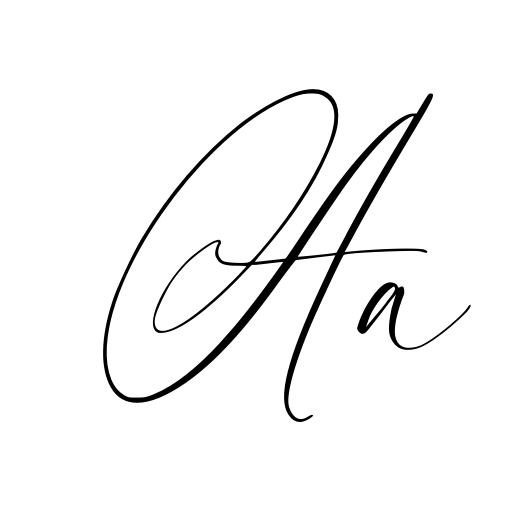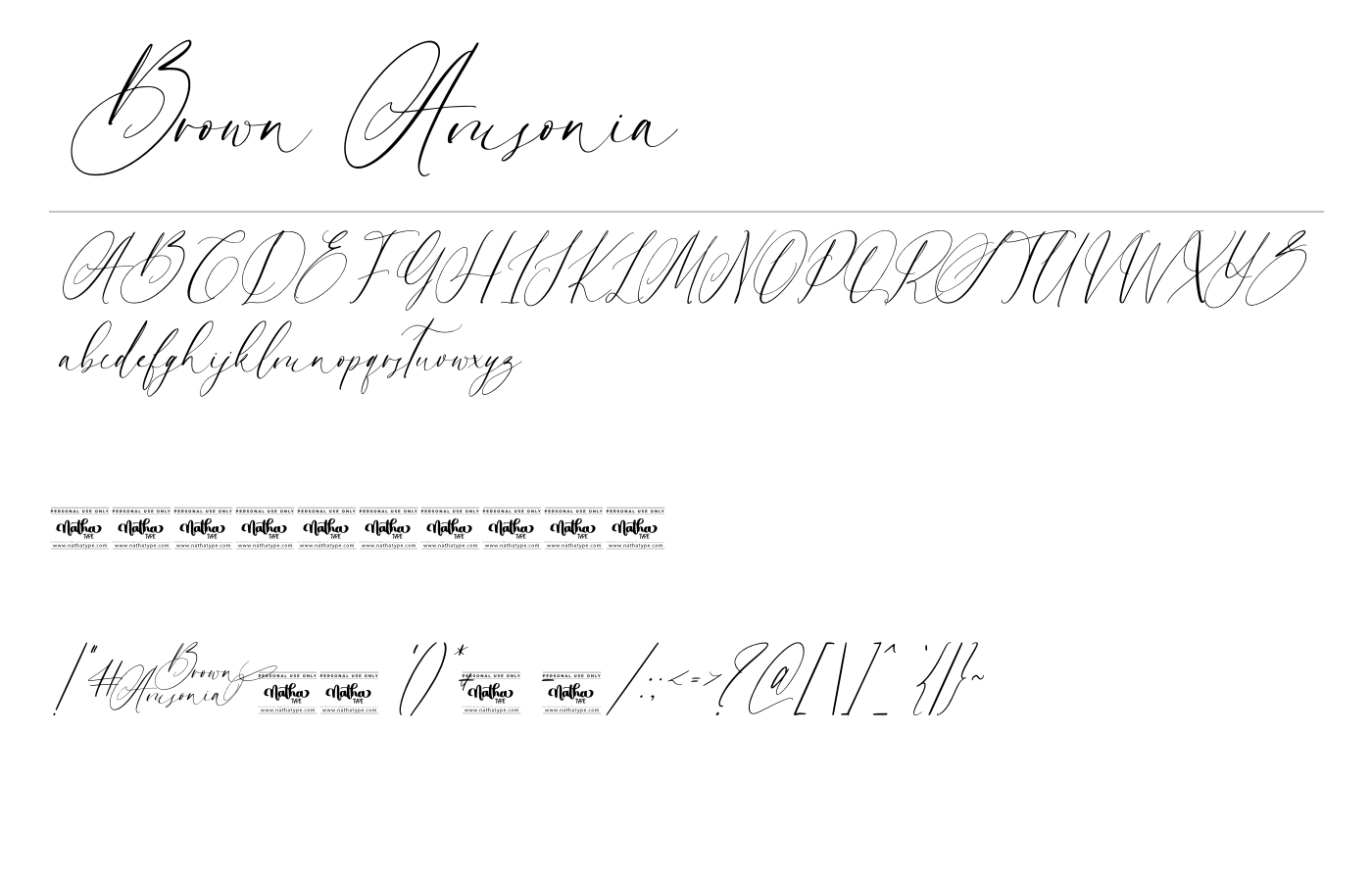
Brown Amsonia is an elegant, delicate script font characterized by its fine, flowing strokes and high contrast between thick and thin lines. Its graceful, hand-written style adds a touch of sophistication and romance, making it perfect for luxury branding, wedding invitations, and stylish editorial design. This font’s airy and refined appearance lends a personal, artistic feel that works best in decorative headlines and exclusive packaging.
Brown Amsonia Font
About Brown Amsonia Font
| Font family | Brown Amsonia Font |